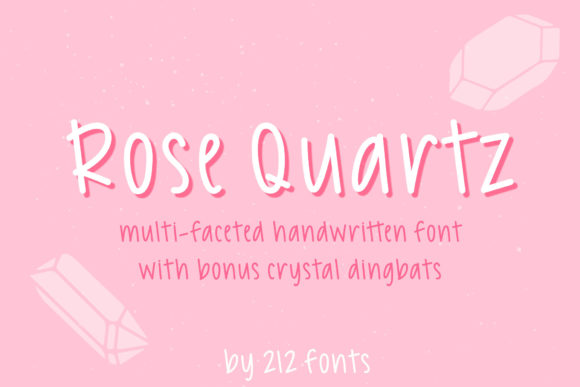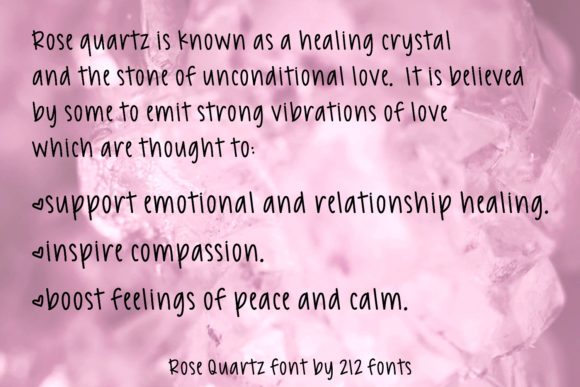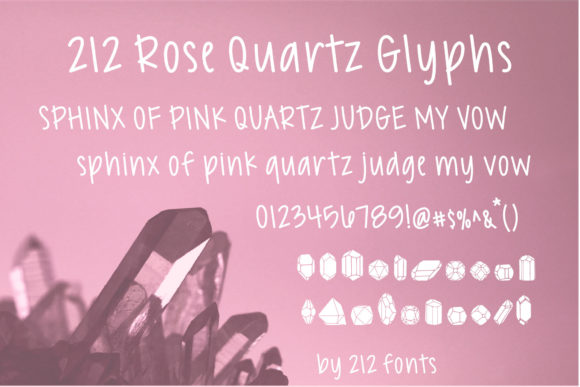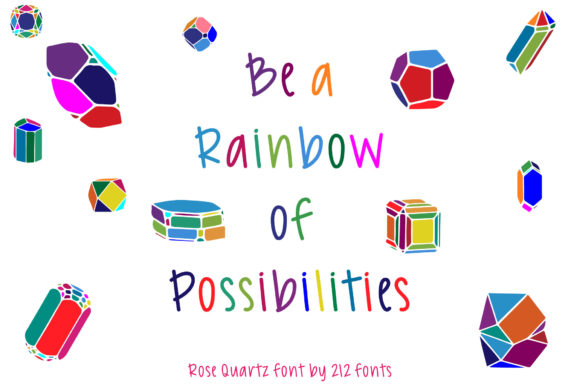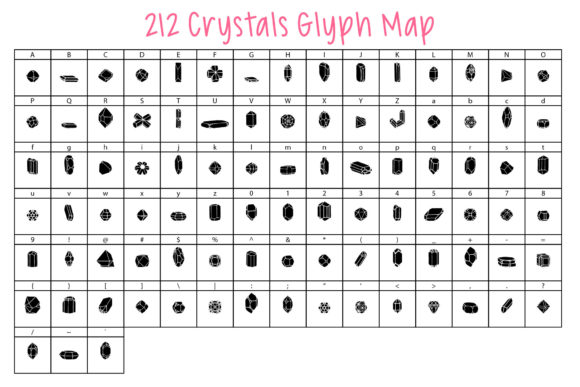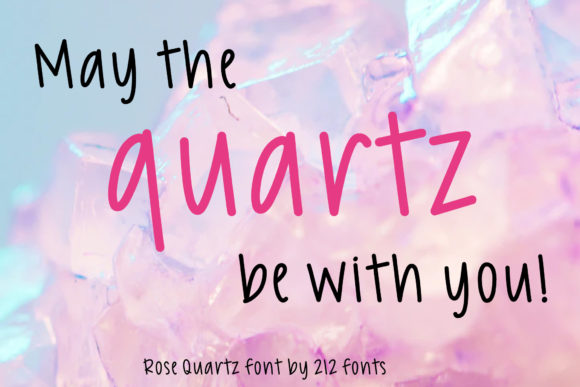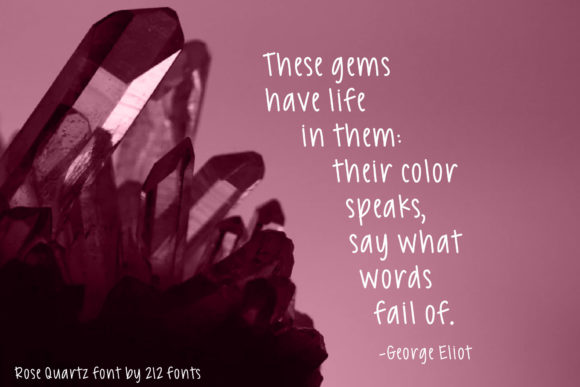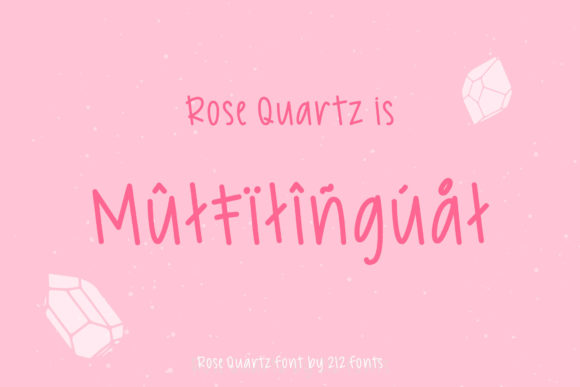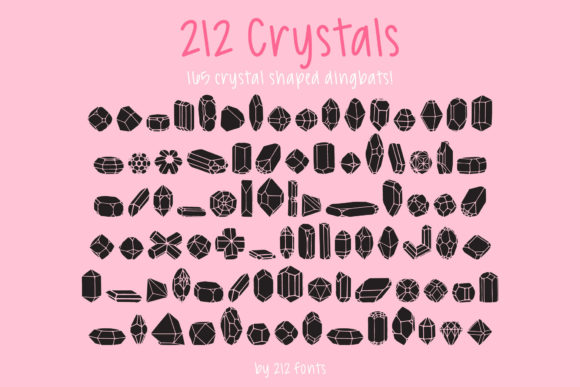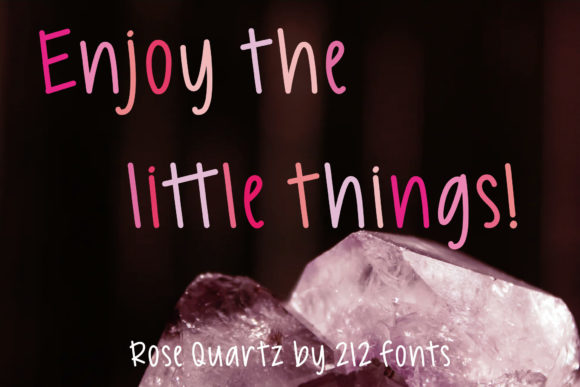
Rose Quartz Font
About Rose Quartz Font
Rose Quartz is a sweet, casual and adaptable duo font (handwritten and dingbats). Its informal style and casual vibe will make this font a go-to choice for each of the creations that require a relaxed touch.